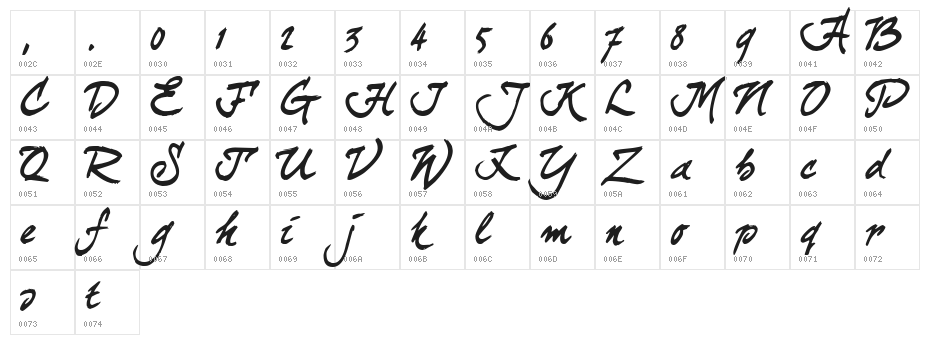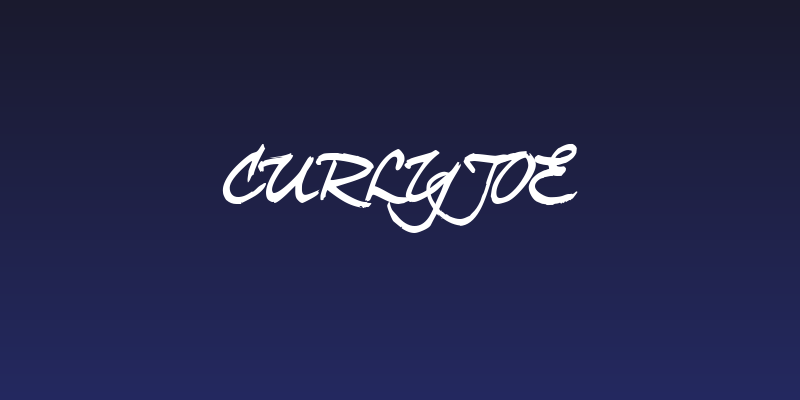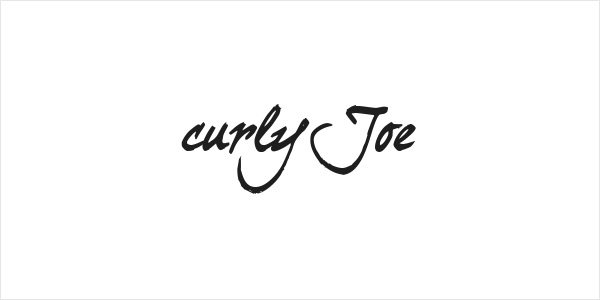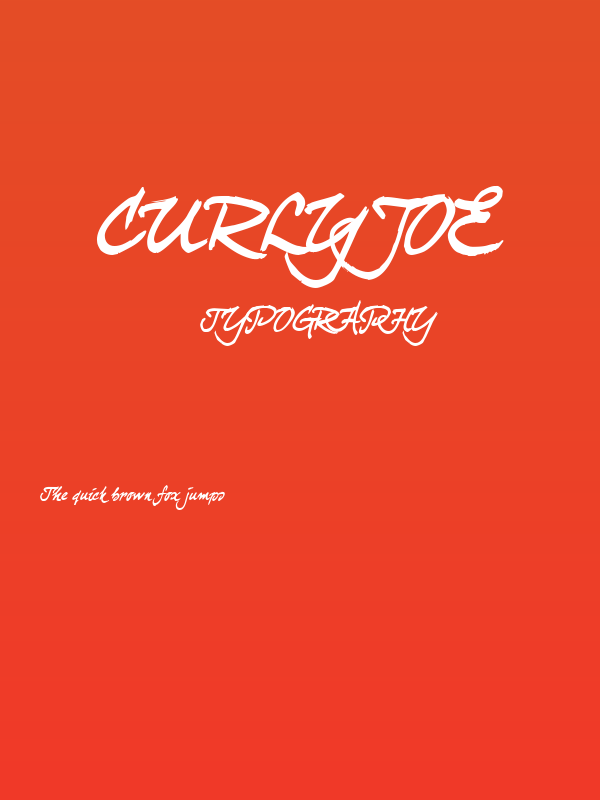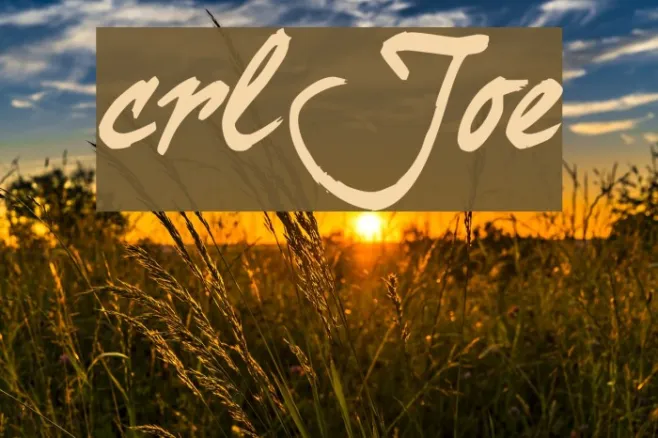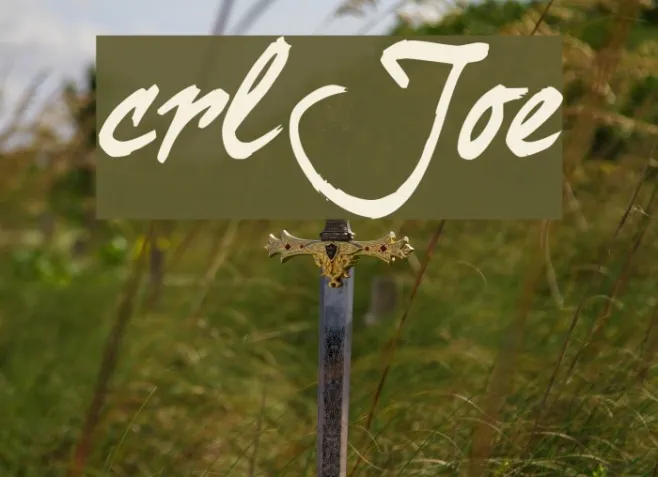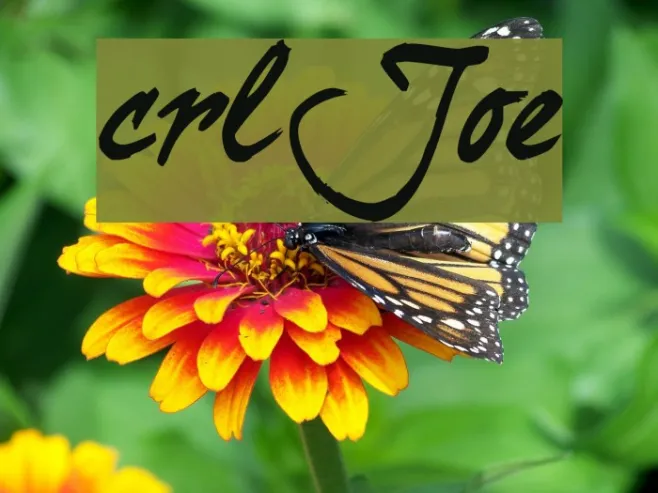
curlyJoe Font
curlyJoe Description
This font features a dynamic and expressive script style, characterized by its flowing, cursive strokes and dramatic flair. The uppercase letters exhibit a bold, sweeping motion, while the lowercase letters maintain a consistent fluidity that enhances readability. The numerals and special characters are crafted with the same artistic touch, ensuring a cohesive appearance across all elements. The overall design exudes a sense of elegance and creativity, making it suitable for projects that require a personal and artistic touch. The strokes vary in thickness, adding a sense of movement and energy to the text.
CURLYJOE UPPERCASE
CURLYJOE LOWERCASE
CURLYJOE OTHER CHARS